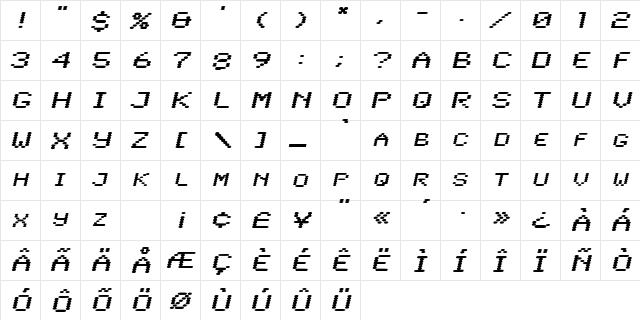
LowtechExtended Oblique
Design Context for LowtechExtended Typeface
LowtechExtended has a distinctly futuristic character, with geometric precision and clean angles that feel at home in technology, gaming, and sci-fi contexts. The dynamic lean of this cut emphasises speed and emphasis in any layout.